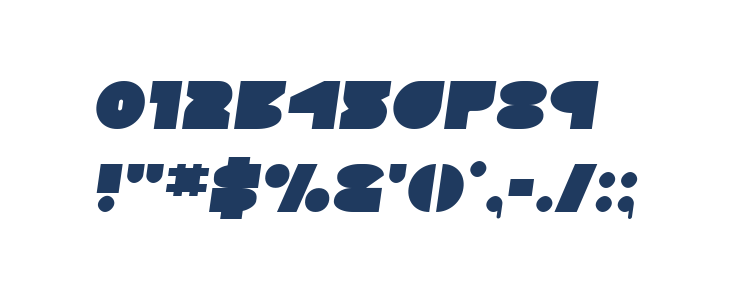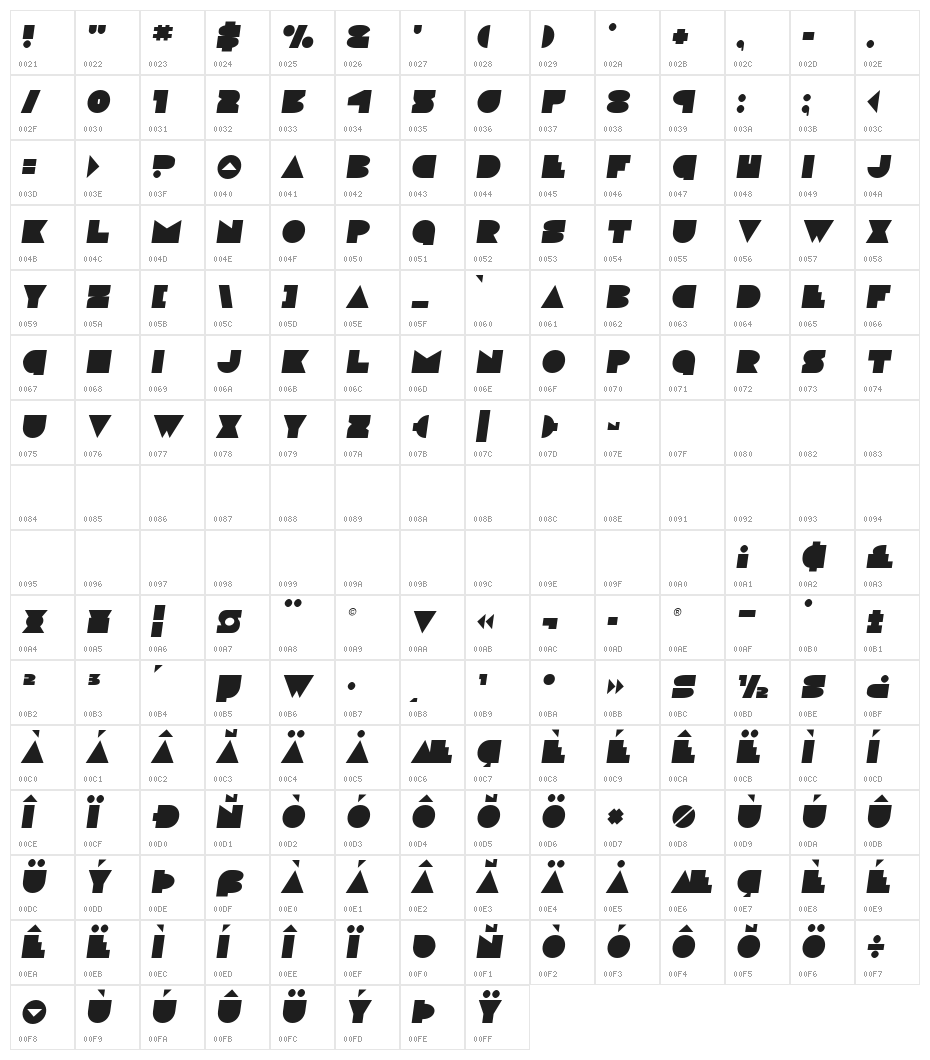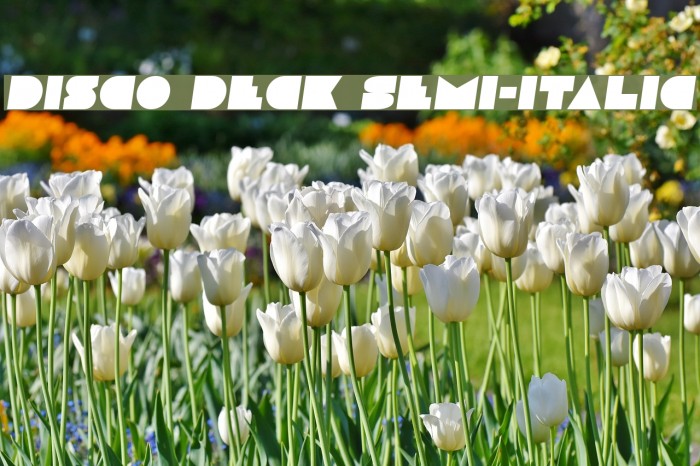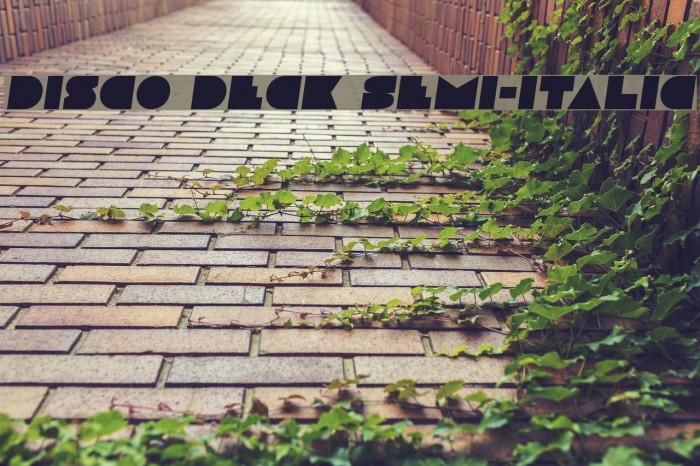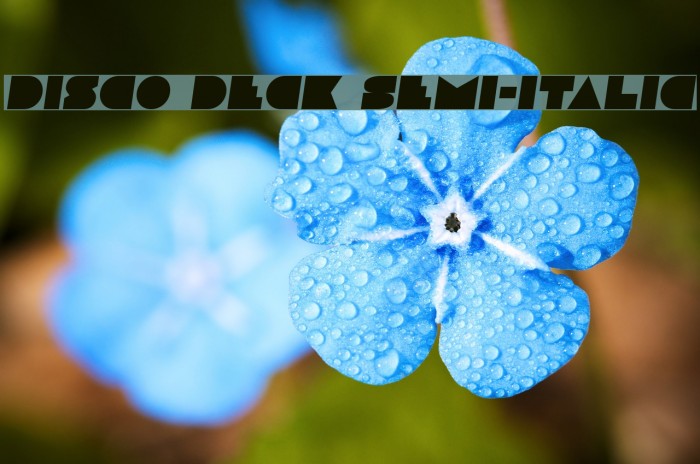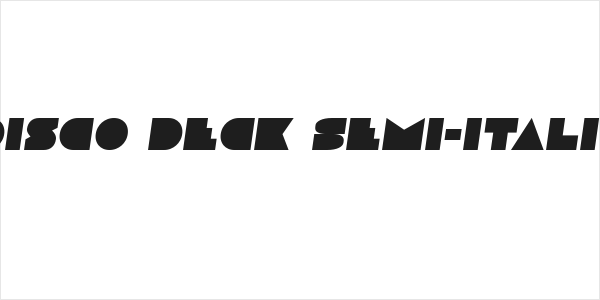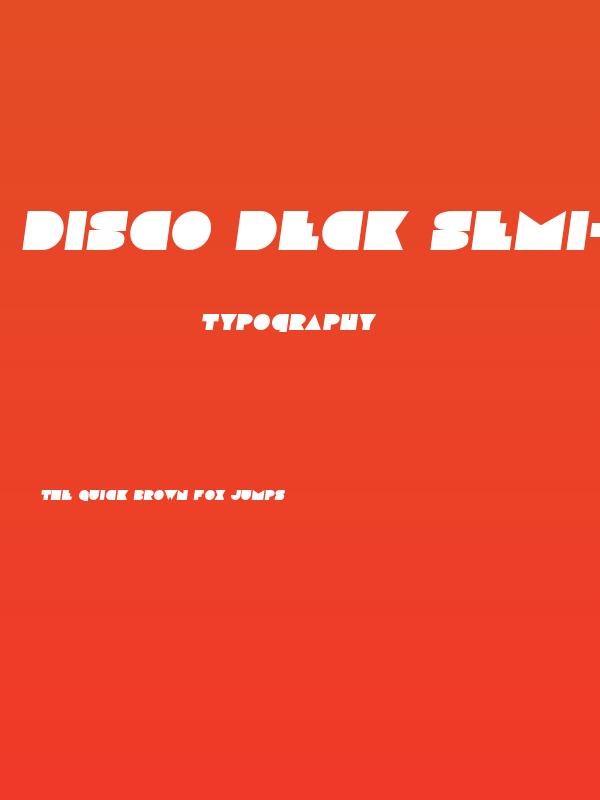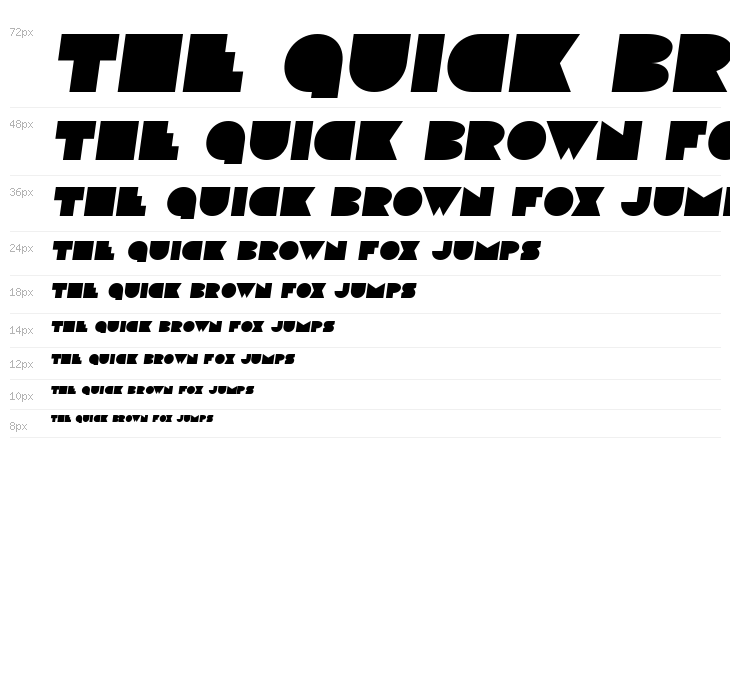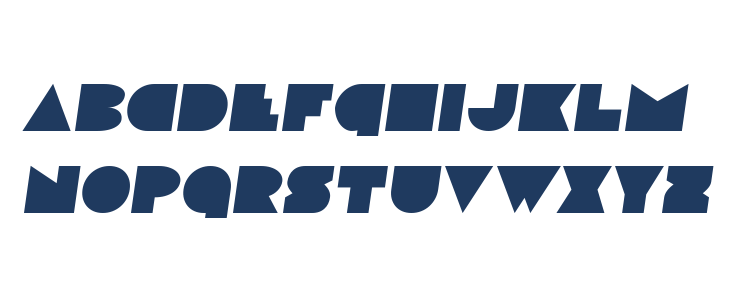
Disco Deck Semi-Italic Font
Disco Deck Semi-Italic Description
This font features a bold and dynamic design with geometric shapes and sharp angles, creating a sense of movement and energy. The characters are wide and have a strong presence, making them ideal for attention-grabbing headlines. The semi-italic style adds a slight slant, enhancing the sense of motion. The font's unique style is reminiscent of retro and disco aesthetics, with a modern twist. The numbers and special characters maintain the bold and angular theme, ensuring consistency across all glyphs.
| Overall Style | Retro, Modern |
| Proposed Projects | Ideal for music album covers, event posters, retro-themed branding, and eye-catching headlines. |